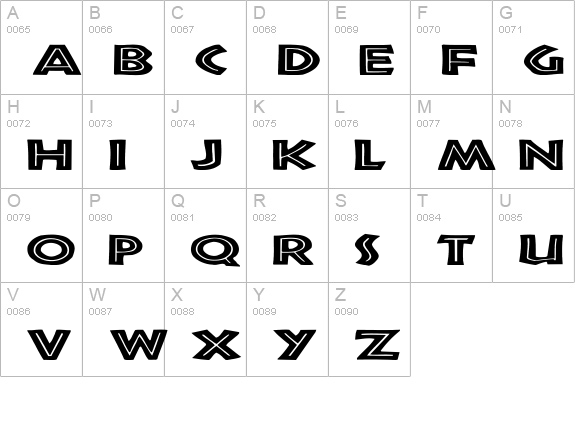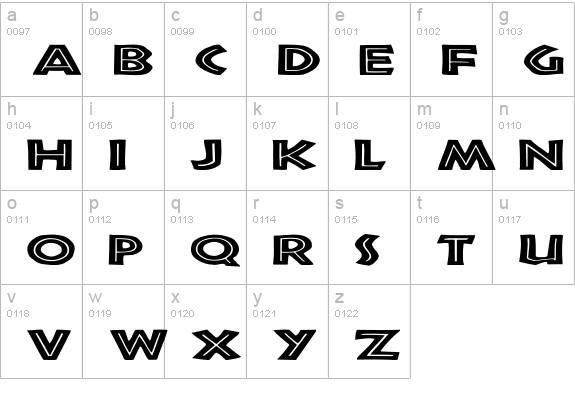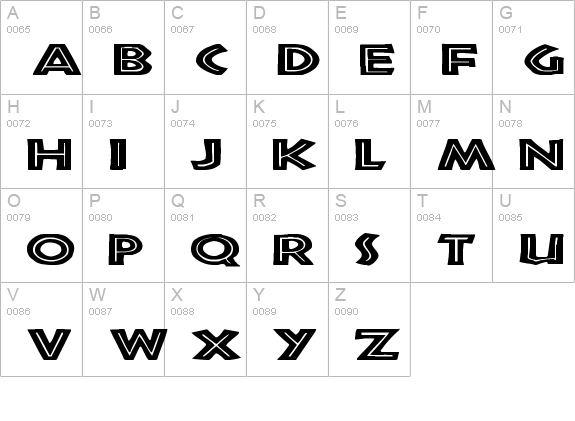
Tribeca Ex is a magnificent font that exudes elegance and sophistication. With its sleek and modern design, it adds a touch of class to any project. The clean and crisp letterforms of Tribeca Ex make it perfect for a wide range of applications, from branding and advertising to editorial design and packaging. This exquisite font offers a unique blend of contemporary and timeless aesthetics, making it a versatile choice for both digital and print media. Its balanced proportions and impeccable craftsmanship make it highly legible, ensuring that your message will be conveyed with utmost clarity. But what truly sets Tribeca Ex apart is its availability as a free download on FontsMarket.com. Yes, you read that right - this remarkable font can be yours without spending a dime! FontsMarket.com is renowned for its vast collection of high-quality fonts, and Tribeca Ex is no exception. By offering this font for free, FontsMarket.com enables designers and creatives from all walks of life to access this exceptional typeface and bring their visions to life. So, whether you're a seasoned professional or just starting out on your creative journey, Tribeca Ex is a font that will elevate your designs to new heights. Its free availability on FontsMarket.com makes it an irresistible choice for those seeking a high-quality font without breaking the bank. Don't miss out on this incredible opportunity - download Tribeca Ex today and embark on a design adventure like no other.